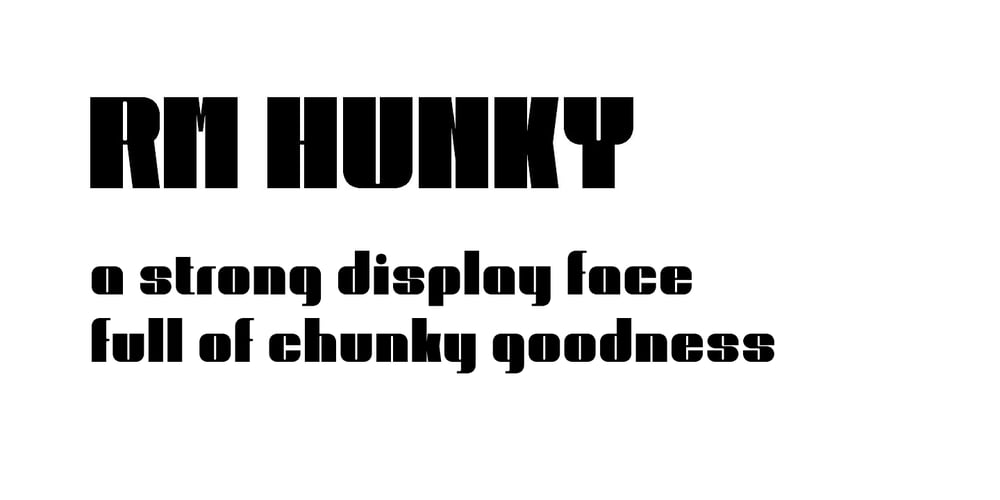
RM Hunky
RM Hunky font
RM Hunky Font Family was designed by Ray Meadows and published by Ray Meadows. RM Hunky contains 1 styles and family package options. This distinctive chunky design has a wide range of possibilities as a display face. With a nod towards Deco this strong, bold and well balanced font has a wide range of uses. Due to the nature of this design there may be a very slight lack of smoothness to the curves at extremely large point sizes (around 200 pt and above).